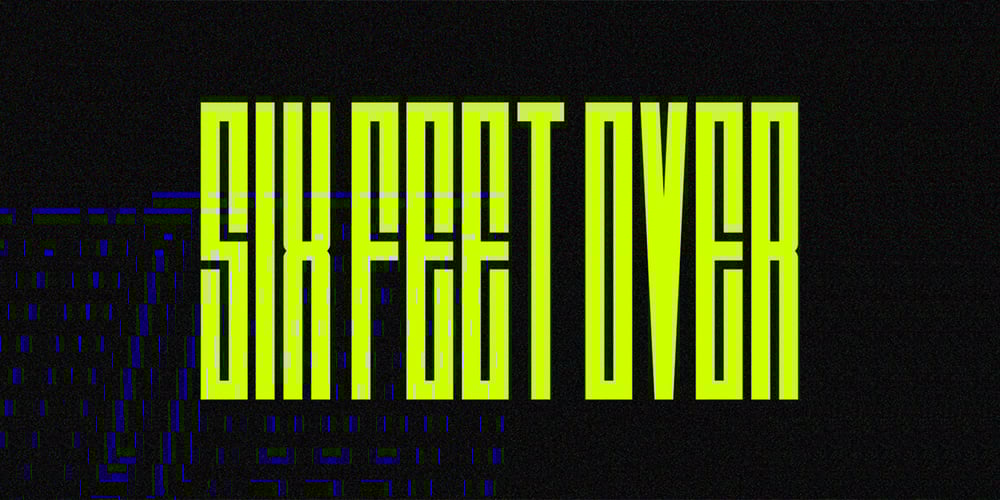
Six Feet Over Font Family was designed by Brad Mead and published by Brad Mead. Six Feet Over contains 4 styles and family package options. Six Feet Over is tall, cool and near impossible to read – what’s not to love? This super condensed and trippy typeface was designed to be elusive and is perfect for those that love condensed, compressed – or any other word for squished – fonts.